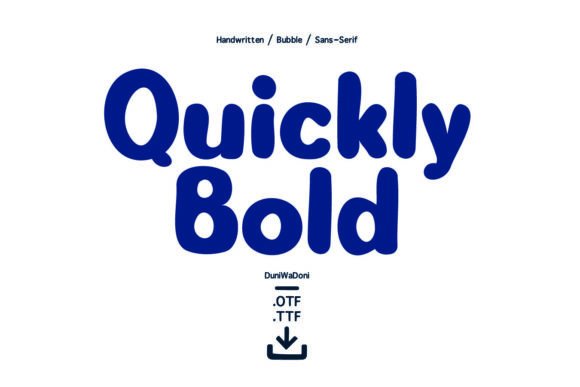
Quickly Bold Font: The Perfect Typeface for Captivating Creativity
Looking for a font that will make your design projects stand out from the crowd? Look no further than Quickly Bold, a charming handwritten bubble Sans-Serif font that is sure to capture attention and leave a lasting impression.
Created by the talented DuniWaDoni, Quickly Bold is more than just a font – it's a creative tool that will elevate your designs to new heights. With its playful and bold design, this font exudes a sense of fun and friendliness, instantly captivating the viewer's attention.
Are you tired of boring and generic fonts that fail to make an impact? Quickly Bold is here to change that. Its unique handwritten style adds a personal touch to any project, allowing you to connect with your audience on a deeper level. Whether you're designing eye-catching headlines, attention-grabbing posters, or engaging social media graphics, this font will make your message impossible to ignore.
The versatility of Quickly Bold is another reason why it's the best font for small display needs. Its legibility remains intact even at smaller sizes, ensuring that your text remains clear and readable. This font is tailor-made for websites, mobile apps, and any other platform where space is limited but impact is crucial.
But it's not just about style and legibility – Quickly Bold is also a powerhouse when it comes to functionality. Its extensive character set includes uppercase and lowercase letters, numbers, punctuation marks, and special characters, providing you with endless possibilities to express your creativity. Whether you're designing logos, branding materials, or invitations, this font has got you covered.
Choosing Quickly Bold means choosing a font that speaks to the emotions of your audience. Its captivating design evokes feelings of joy, excitement, and curiosity, making it the perfect choice for any project that aims to leave a lasting impression.